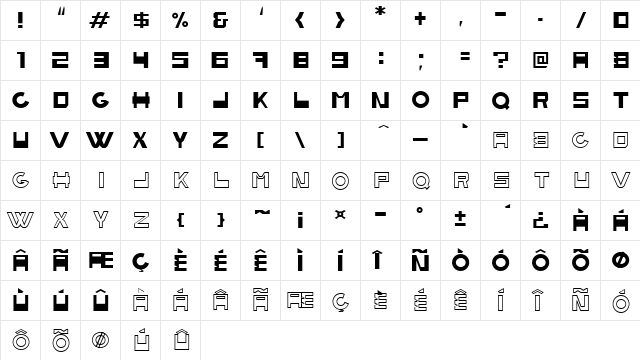
BoBardi Regular
| Foundry | Ion Neto, Lara Benedet, Nicholas Auler |
| Designer | Ion Neto, Lara Benedet, Nicholas Auler |
Design Context for BoBardi Typeface
BoBardi is a composed and adaptable typeface that performs quietly and consistently across a wide range of design contexts.